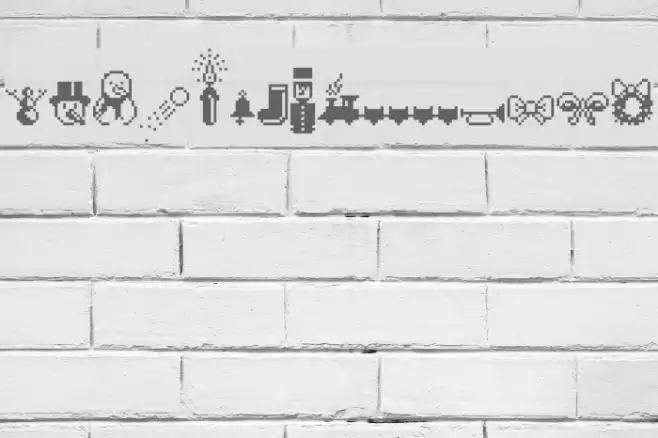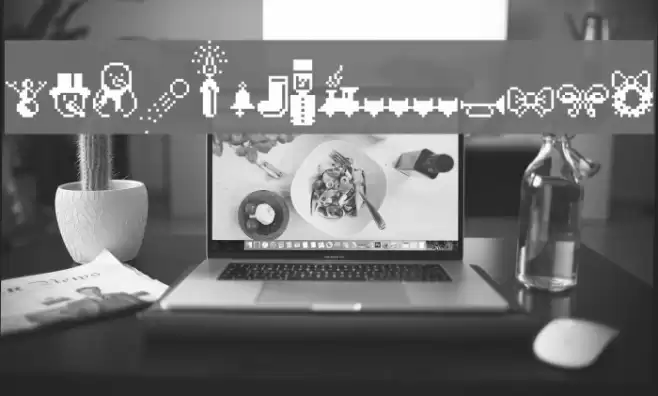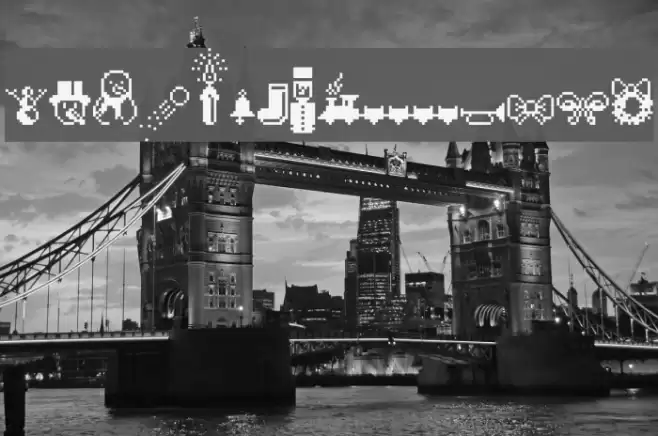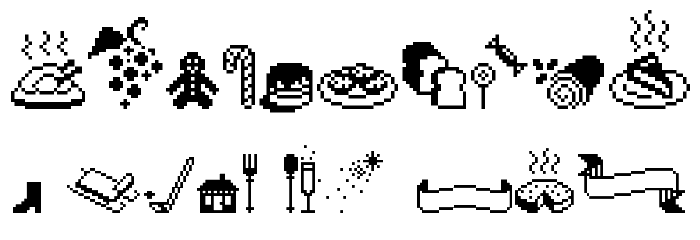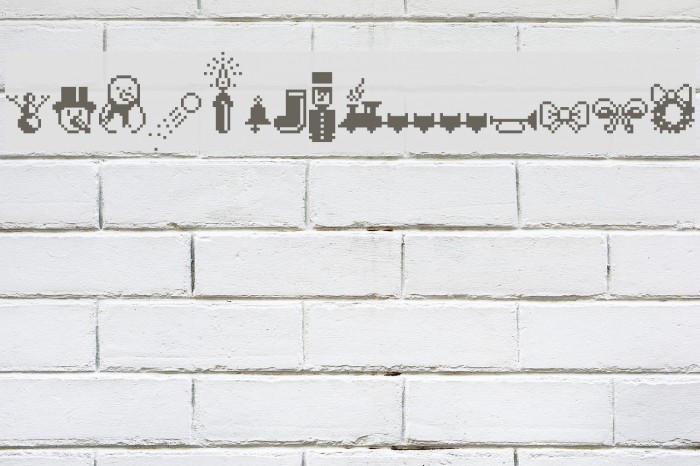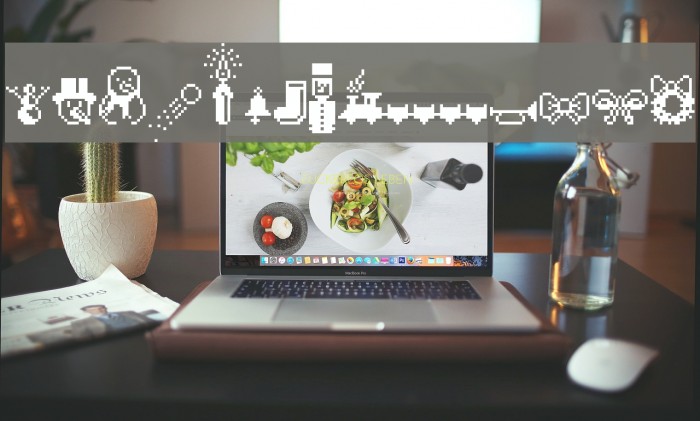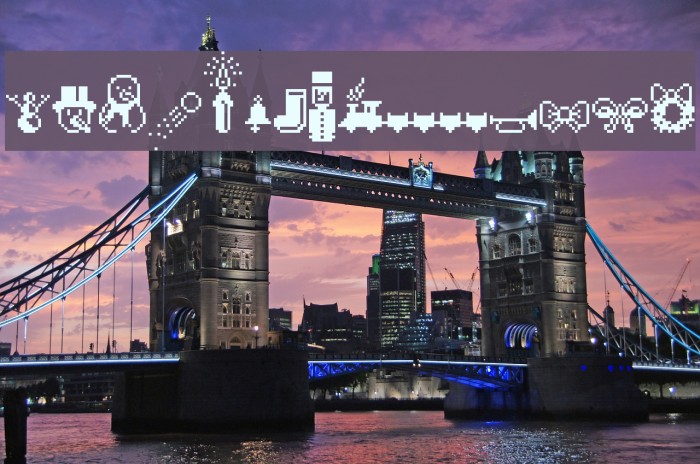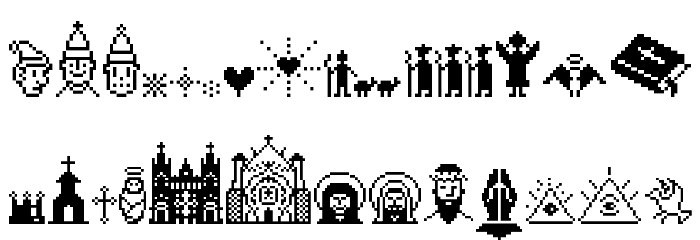
Suboel Font
Suboel Description
A pixel-art style decorative font composed entirely of festive and holiday-themed icons, including Christmas trees, snowmen, gifts, food, and winter motifs. Each character is represented by a unique, detailed pictogram rather than traditional alphanumeric glyphs.
A pixel-art icon font featuring holiday and festive symbols from Pixel fonts.
- Proposed Projects: Holiday cards, festive banners, digital invitations, seasonal social media graphics, event posters.
- Overall Style: Decorative, Festive, Pixel-art
- Use Case: Icons, Decorative elements, Themed graphics